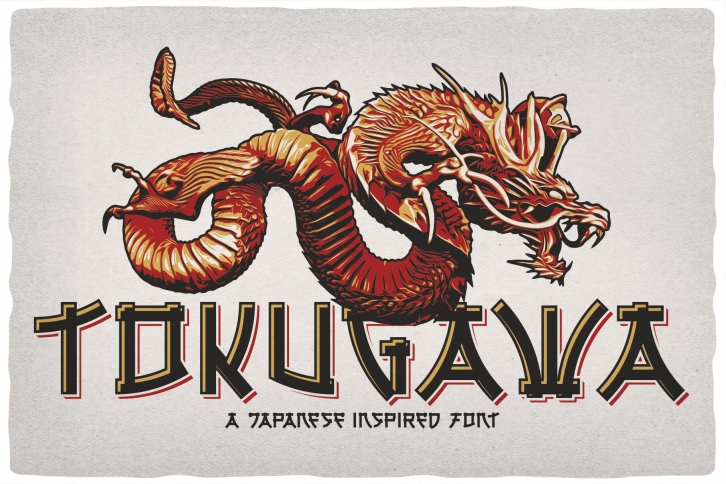
Tokugawa with 10 editable t-shirt designs is a trendy and unique font with an authentic style. It was designed by Vozzy Vintage Fonts And Graphics and it's a great choice for creative people who need such a font. It was released on August 17, 2021 and the file size is 5.52 MB. Tokugawa with 10 editable t-shirt designs will add an organic vibe to any design idea!